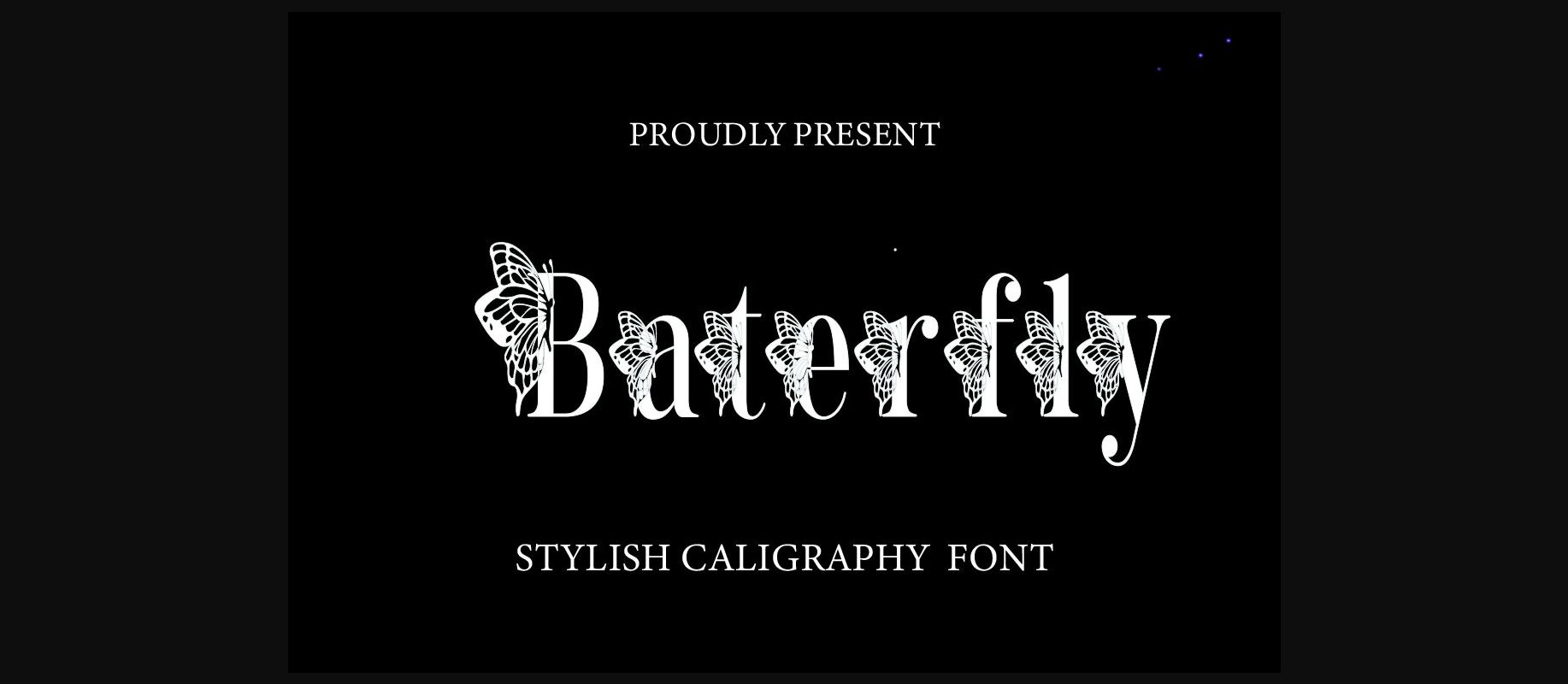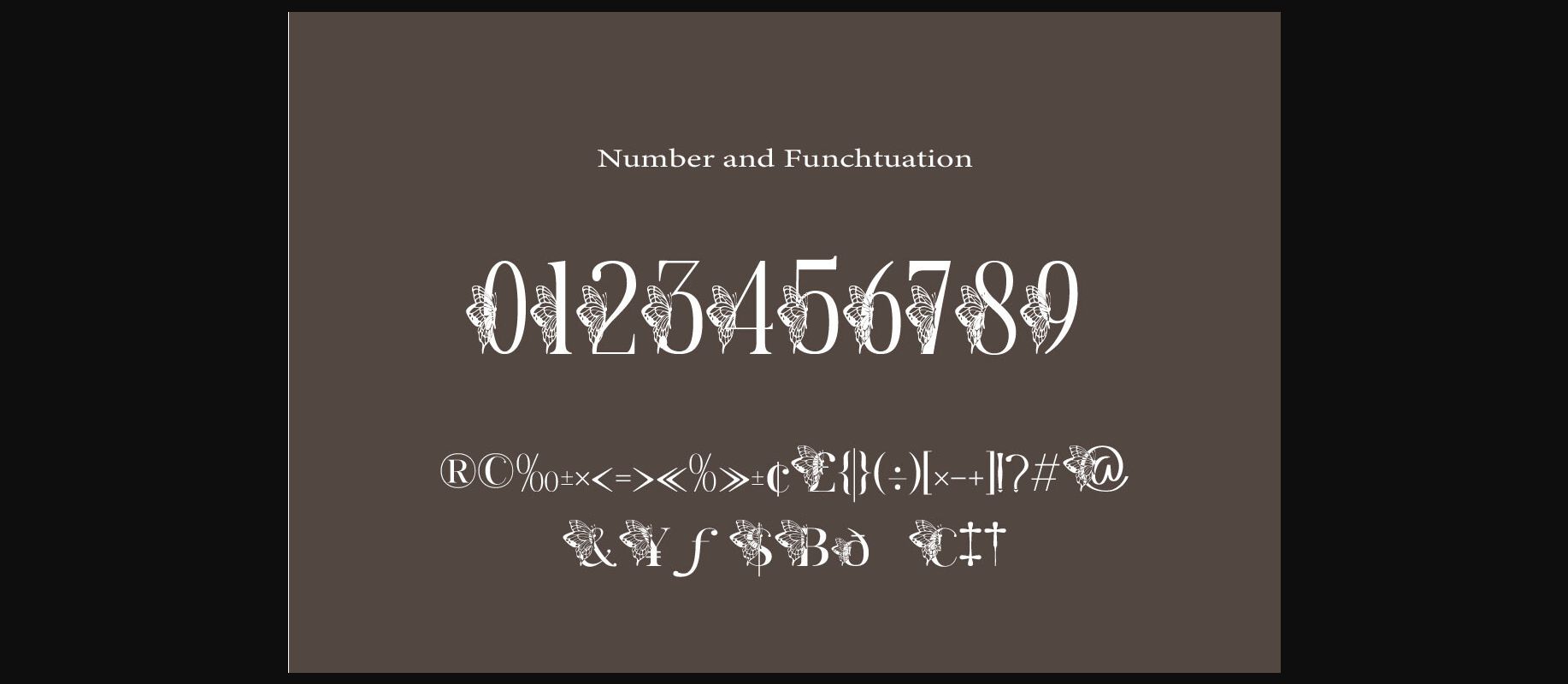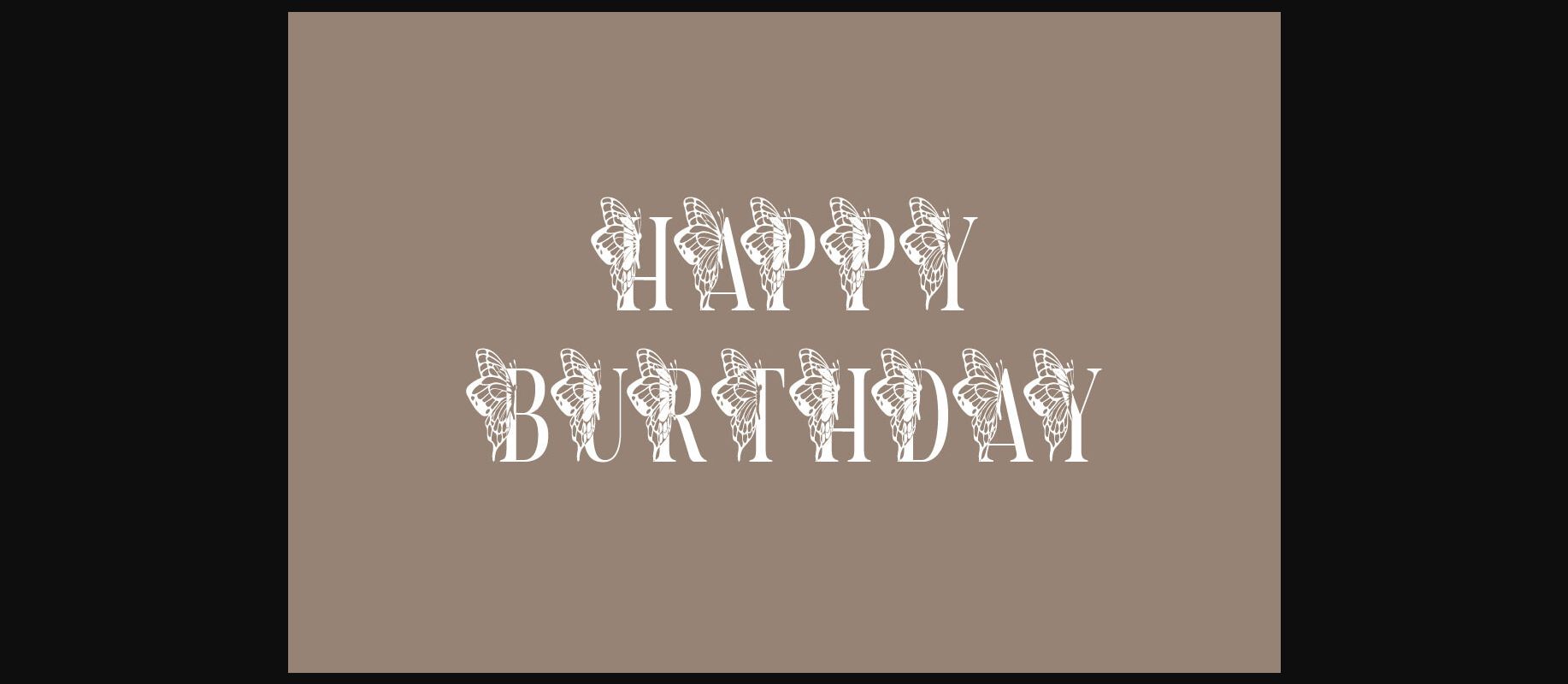
About Baterfly Font
Introduction Baterfly Font. is an elegant decorative font, featuring lovely ornaments. Fall in love with its authentic feel and use it to create gorgeous wedding invitations, beautiful stationary art, eye-catching social media posts, and cute greeting cards.